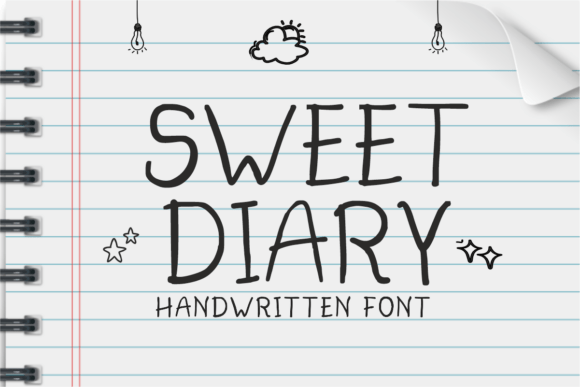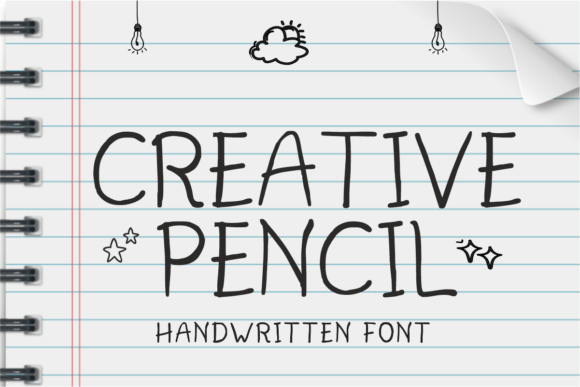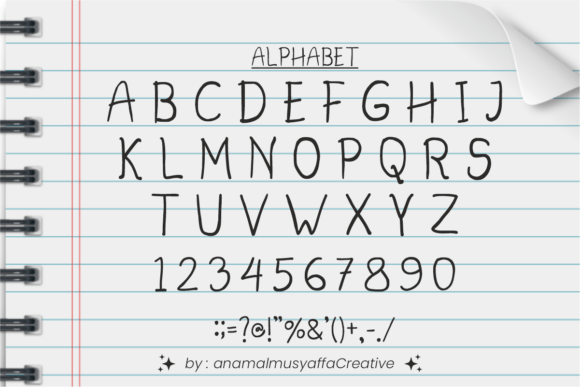
Introduction to Premium Notes Font
We’ve all been there – scribbling notes on a lined notebook, the ink flowing effortlessly as we try to keep up with our thoughts. It’s a moment of pure creativity, where the lines between our ideas and the world around us blur. And now, with the Premium Notes Font, you can capture that same essence in your digital designs.
This high-quality font is more than just a design resource – it’s a way to add a personal touch to your creative project, making it feel more authentic and approachable. With its clean, simple structure and transparent background, Premium Notes Font is perfect for designers who want to create educational materials, planner inserts, or journal pages that exude a sense of clarity and professionalism.
Key Features of Premium Notes Font
- High-quality design with a modern and elegant look, perfect for creative projects.
- Comes with a transparent background, making it easy to use in various design resources.
- Includes 200 unique characters, including uppercase and lowercase letters, numbers, and special symbols.
- Unique characteristic: Each character is carefully crafted to provide a distinctive and premium feel.
Honest Review: Premium Notes Font
I recently had the opportunity to work with the Premium Notes Font and I must say it’s been a game-changer for my creative projects. The font is a high-quality design resource that brings a professional touch to any layout.
What works well is the font’s versatility – it’s perfect for a wide range of creative projects, from blog posts to social media graphics. The transparent background makes it easy to use in combination with other design elements. The font is also incredibly easy to download and install, which is a huge plus for designers who value their time.
⚠️ However, I do wish the font had a few more font sizes and styles to choose from. Sometimes, it can be limiting when working with a single font.
Overall, I’m really impressed with the Premium Notes Font. It’s a great addition to any designer’s toolkit and I highly recommend it to anyone looking for a high-quality design resource. ✨
Use the Premium Notes Font in conjunction with other design elements to create a cohesive and professional look. Experiment with different font sizes and colors to add visual interest to your design. Consider using the transparent background feature to create a sense of depth and dimension.
The Premium Notes Font is ideal for creating presentations, social media graphics, and marketing materials. It’s also perfect for designers who need a high quality design resource for their creative projects. With its transparent background and clean lines, the Premium Notes Font is a versatile design resource that can be used in a variety of contexts.